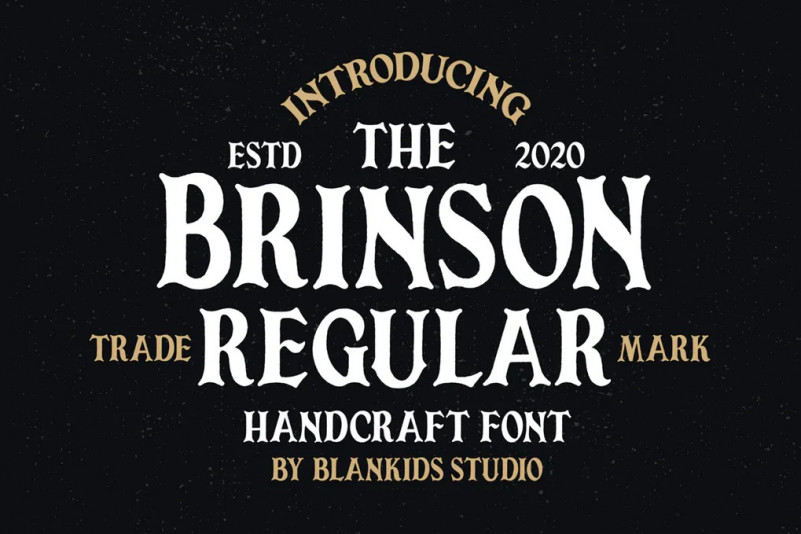
Brinson Regular Font
Introducing a new Font called Brinson Regular Vintage Serif Font. Brinson Regular inspired from vintage style good for signature, logotype, poster, social media, book cover, tshirt design, packaging and any more.